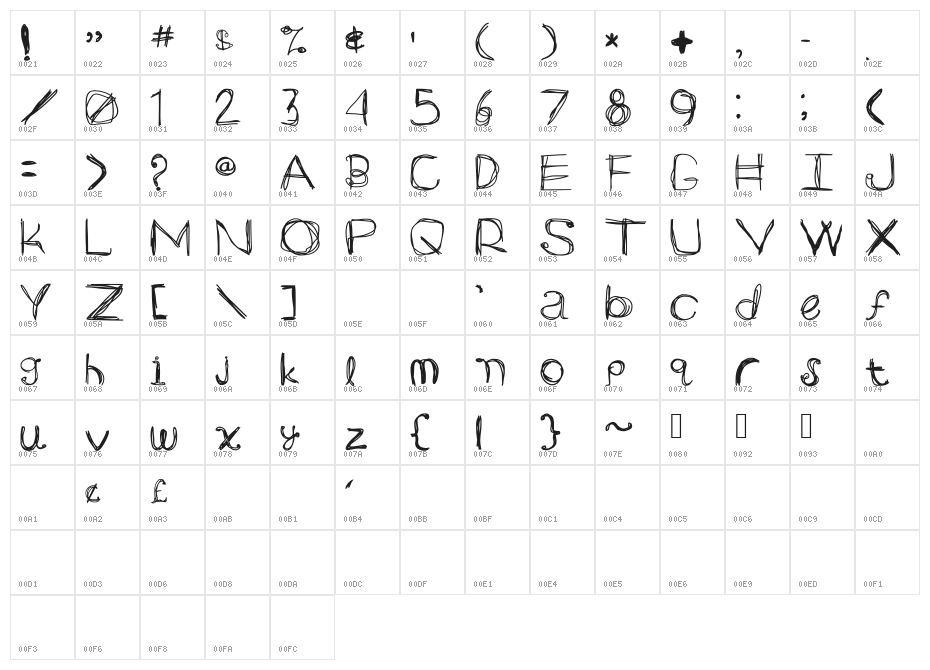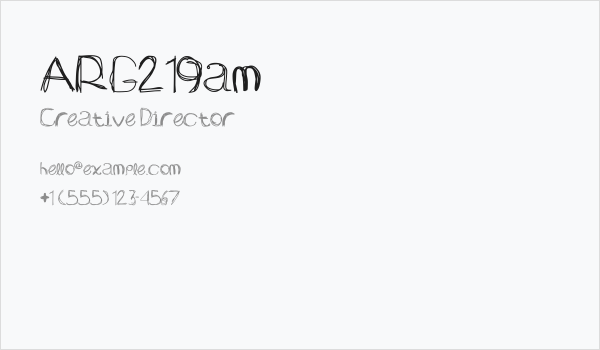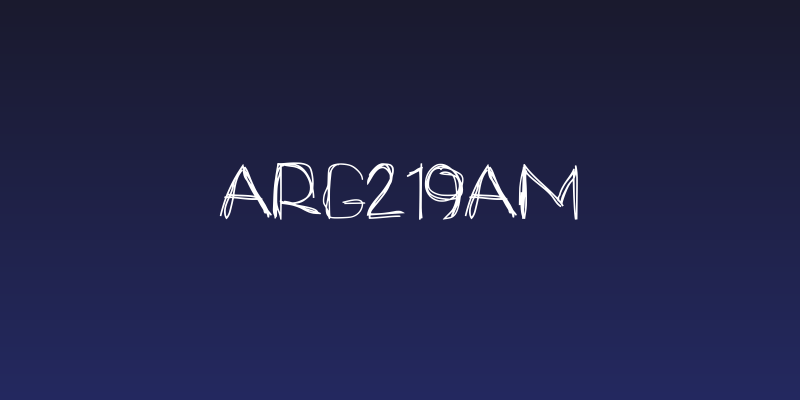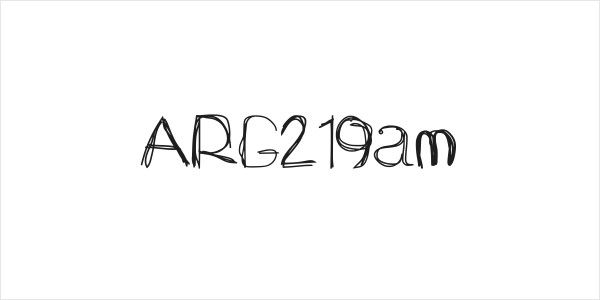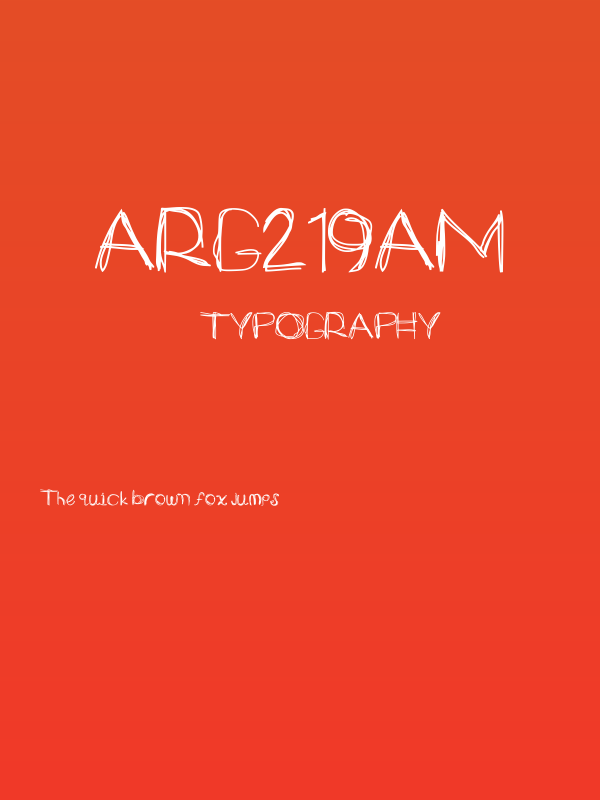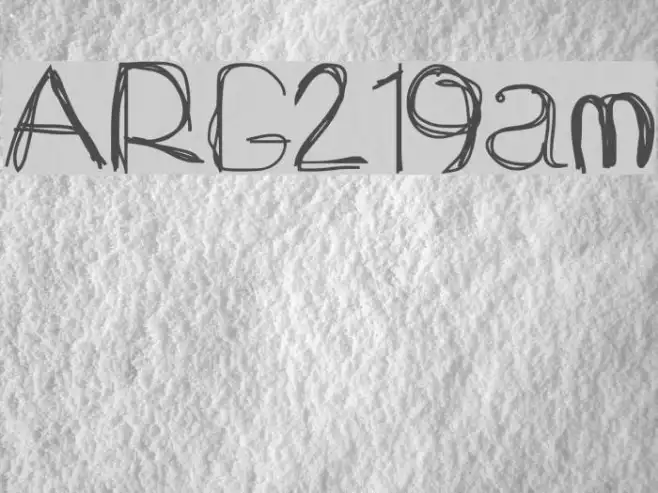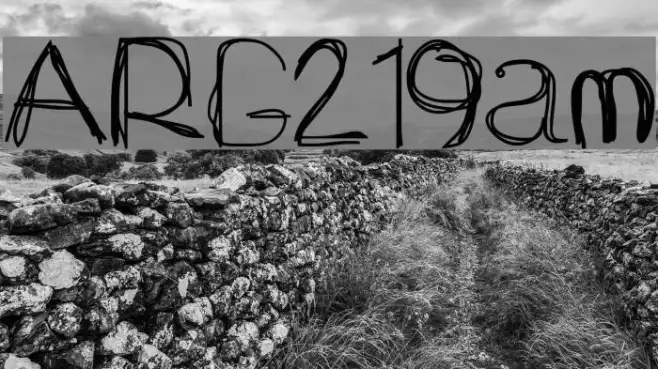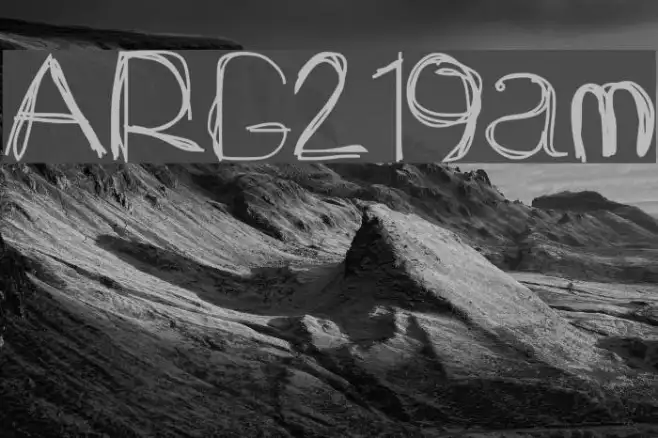
ARG219am Font
ARG219am Description
This font exhibits a playful and artistic style, characterized by its hand-drawn appearance. The letters are irregular and dynamic, with a whimsical flair that suggests movement and creativity. The strokes are uneven, giving each character a unique personality. The uppercase and lowercase letters maintain a consistent style, with some letters featuring exaggerated loops and curves. Numbers and special characters follow the same playful design, adding to the font's overall charm. This font is perfect for projects that require a touch of individuality and artistic expression.
| Proposed Projects | Ideal for creative projects such as children's books, artistic posters, and unique branding materials. |